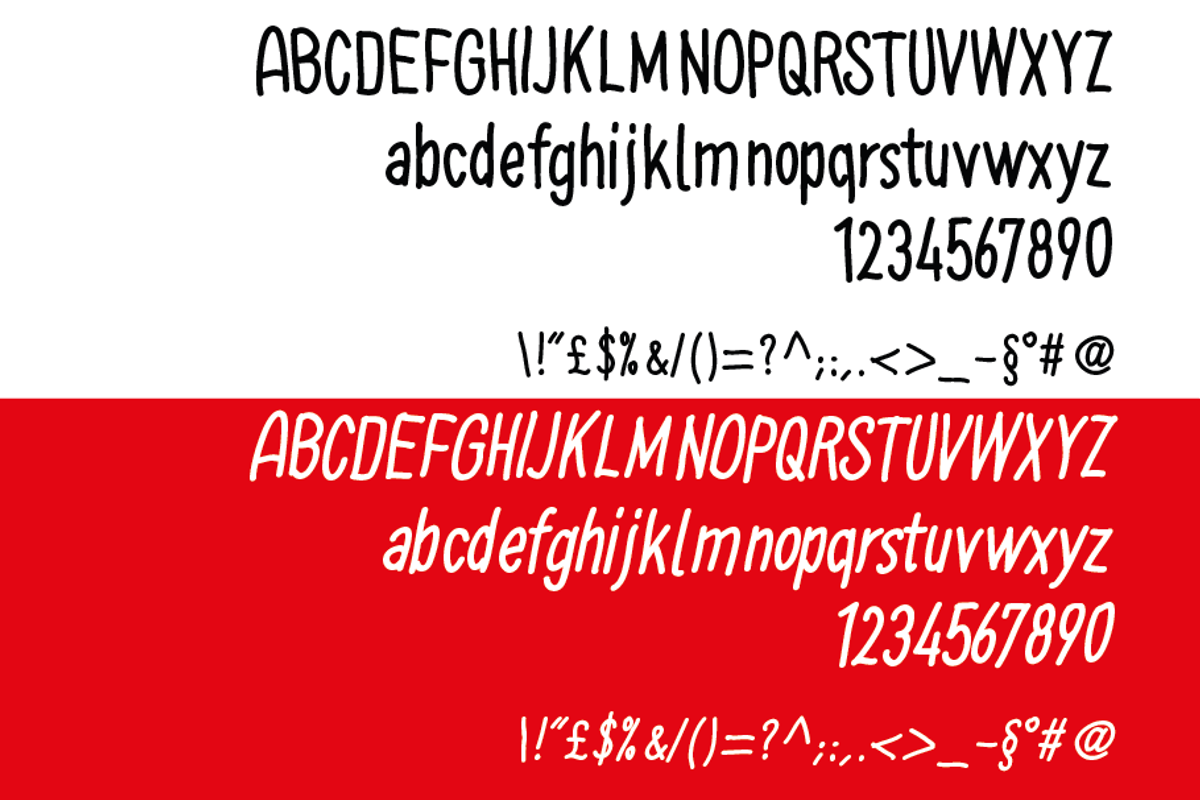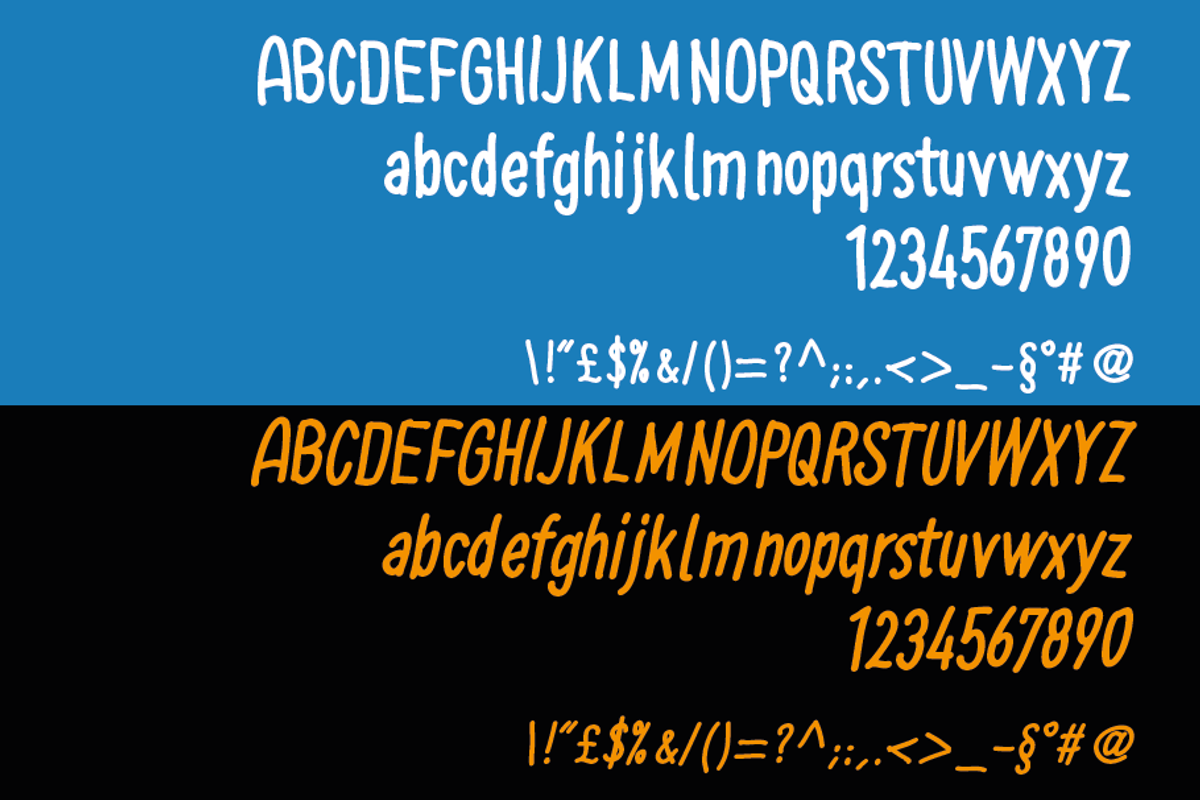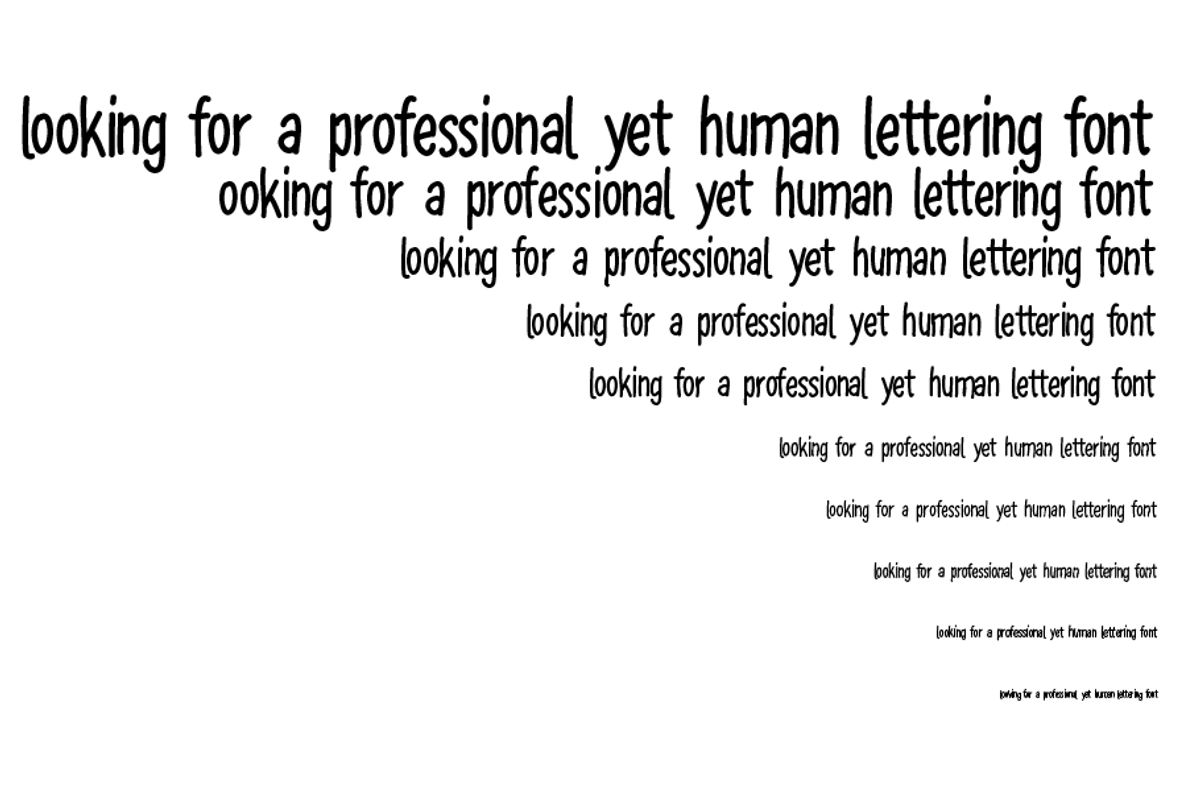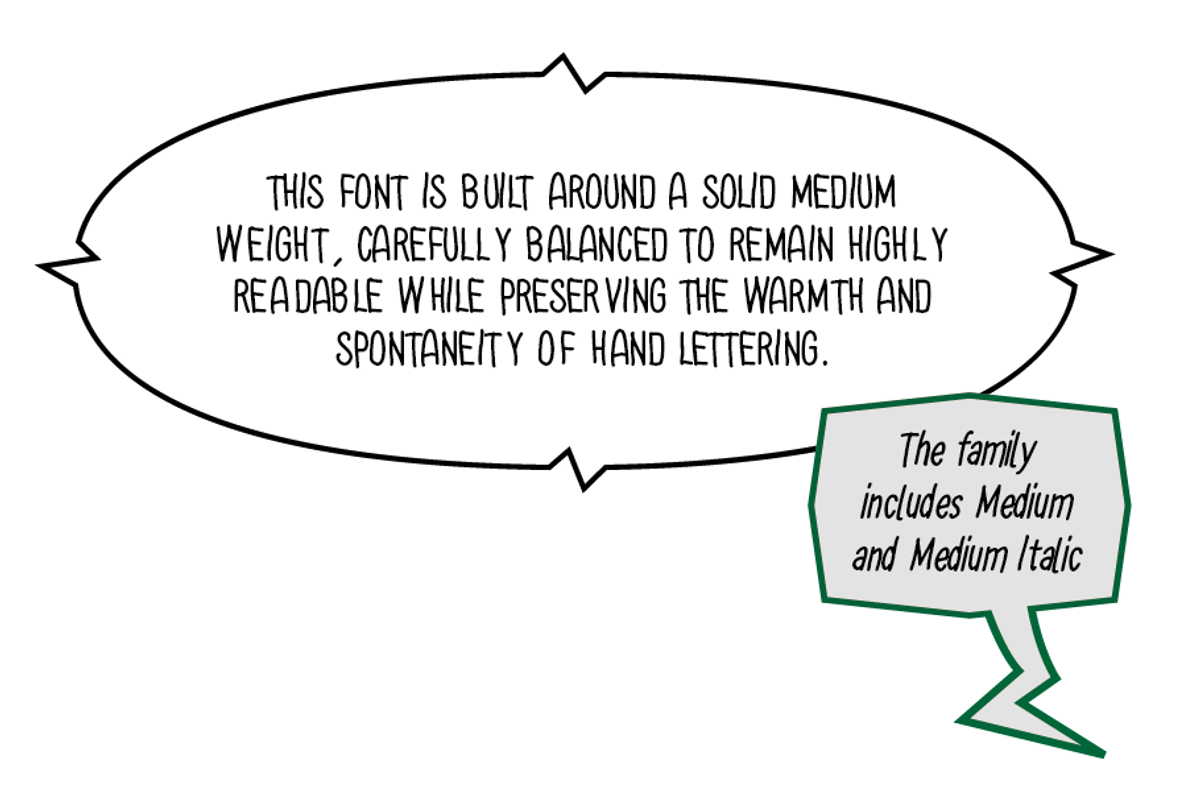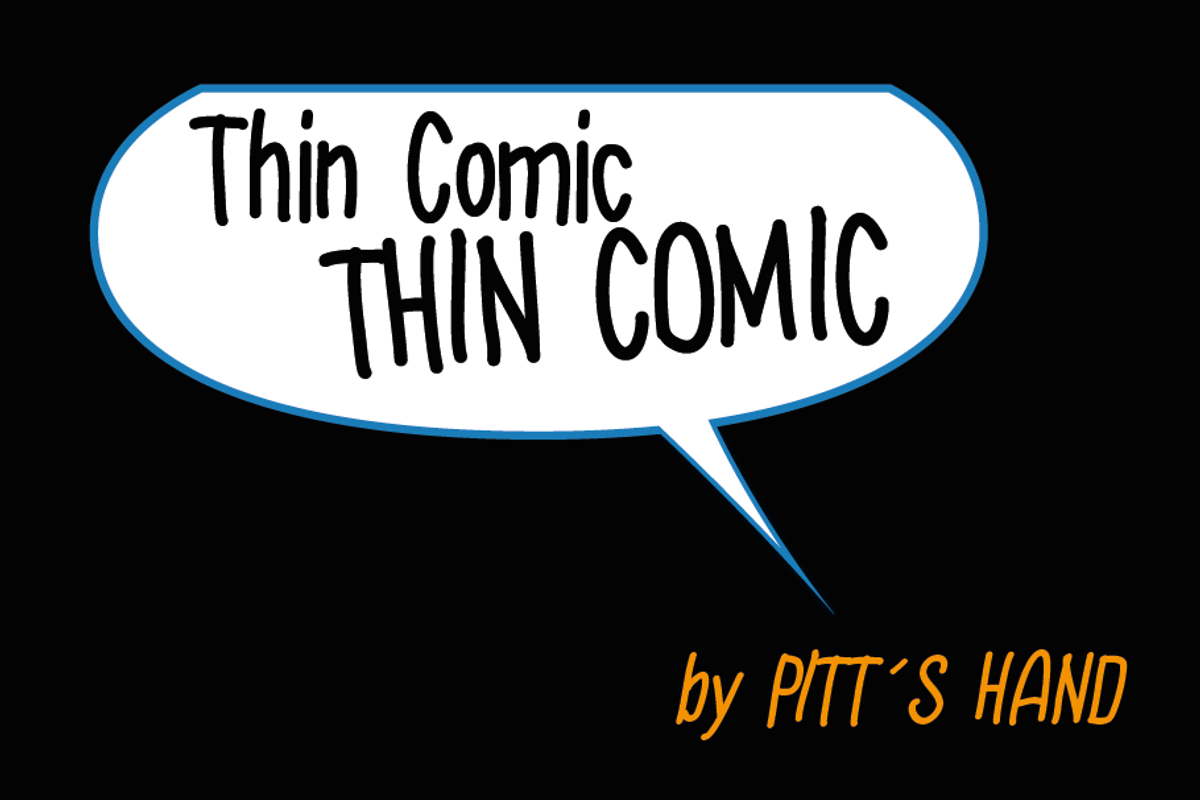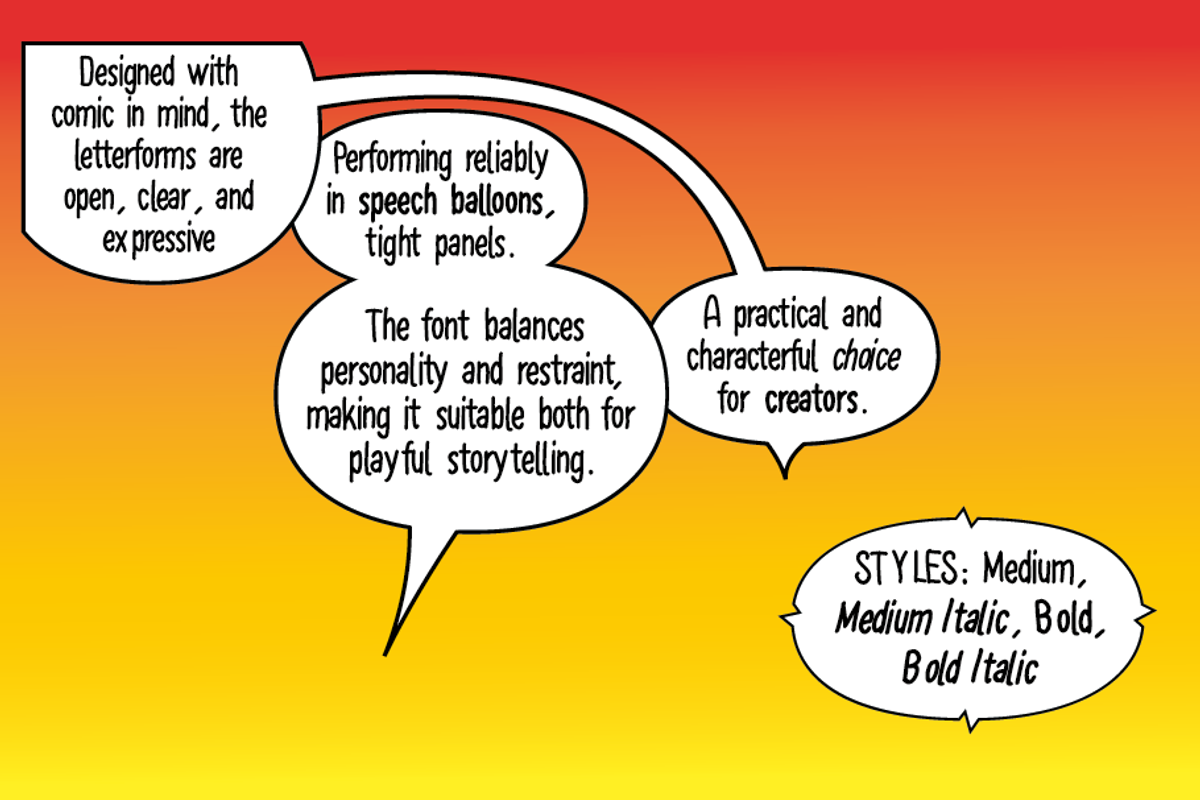
Thin Comic
This font is built around a solid Medium weight, carefully balanced to remain highly readable while preserving the warmth and spontaneity of hand lettering. Its natural rhythm and slightly irregular stroke modulation make it ideal for independent comics, graphic novels, zines, webcomics, and illustrated narratives.
The family includes Medium, Medium Italic, Bold and Bold Italic offering just enough variation to handle dialogue, emphasis, captions, and narrative shifts without overcomplicating the typographic system.
Designed with comics in mind, the letterforms are open, clear, and expressive, performing reliably in speech balloons, tight panels, and dense text blocks. The font balances personality and restraint, making it suitable both for playful storytelling and more serious, author-driven projects.
A practical and characterful choice for creators looking for a professional yet human lettering font, built to support long-form reading and personal visual identities.
Styles: Medium, Medium Italic. Bold, Bold Italic Recommended use: Comics, graphic novels, indie publications, zines, webcomics, illustrated books, lettering projects